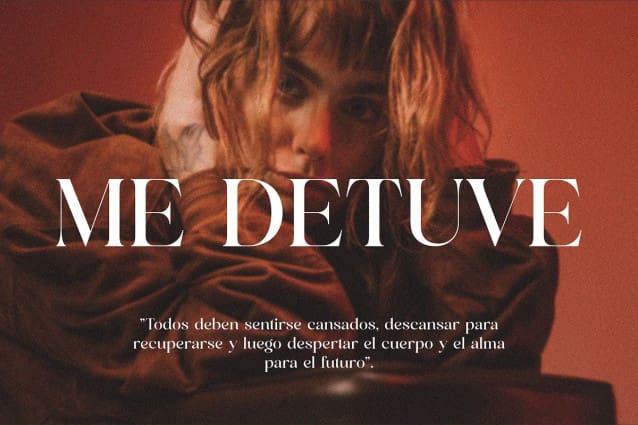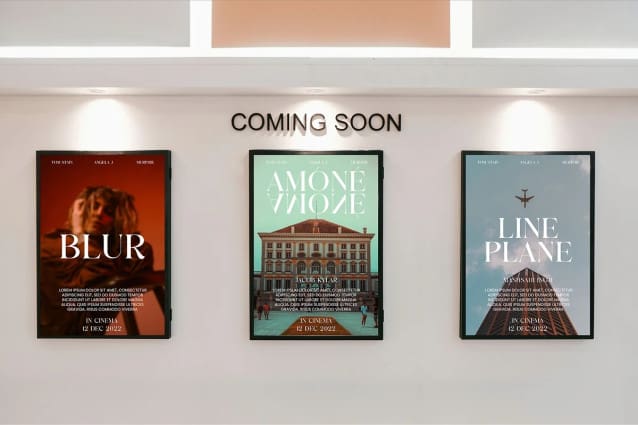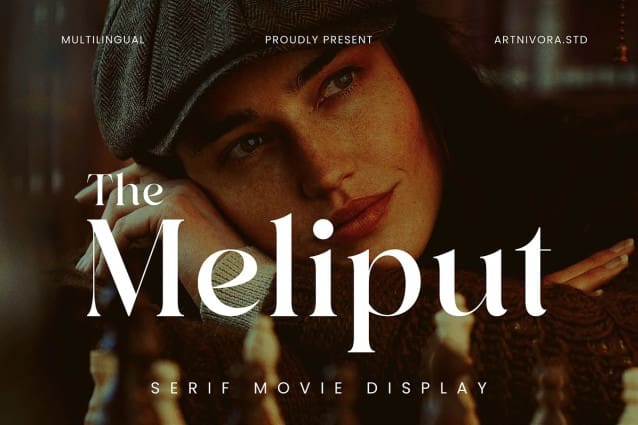
The Meliput Font
The Meliput Font, a simple and serif font. So perfect for you who needs a typeface for logo designs, magazine, social media, brochure, and many more.